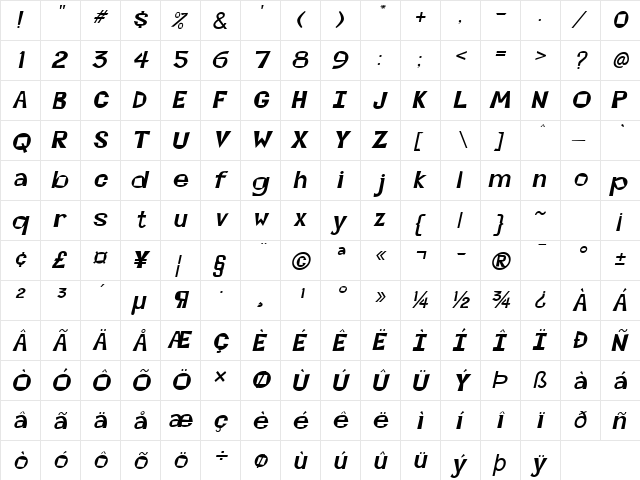
Magoo Italic Font Preview
Magoo Italic
Magoo Italic Font Details
Design Context for Magoo Typeface
Magoo takes a measured approach to typography — its balanced proportions and neutral character make it a reliable workhorse for both digital and print work. The dynamic lean of this cut emphasises speed and emphasis in any layout.
Pro Tip: Try Magoo for annotation and caption copy alongside an upright companion — the contrast in angle creates a dynamic but ordered typographic system.